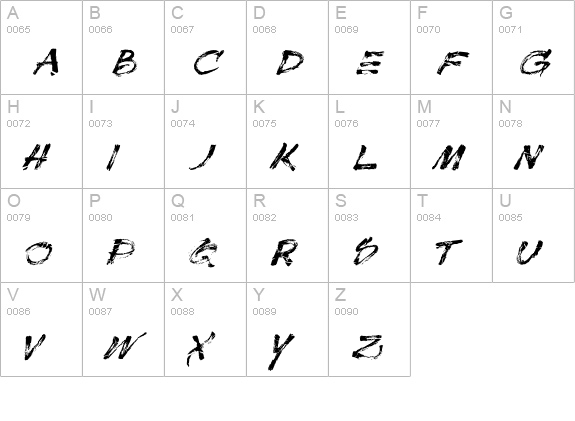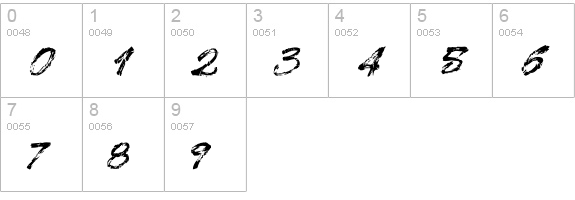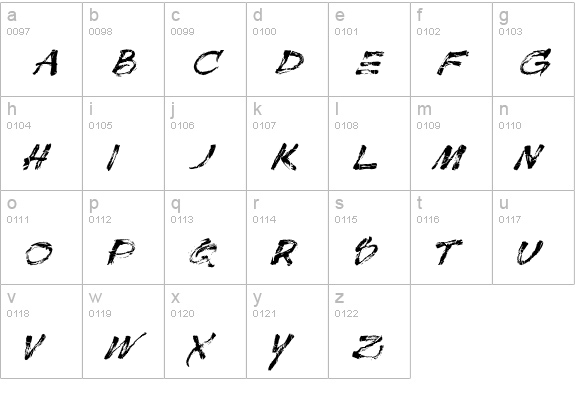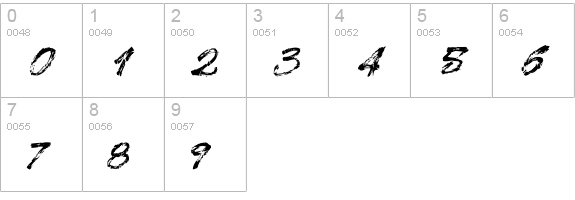
SonicaBrush Crashed Font Details
SonicaBrush Crashed font is a dynamic and edgy typeface that exudes energy and creativity. With its bold strokes and distressed appearance, this font is perfect for adding a rebellious and gritty touch to your designs. The jagged edges and uneven lines give SonicaBrush Crashed a sense of movement and urgency, making it ideal for projects that require a bold statement. Best of all, SonicaBrush Crashed font is available for free download at FontsMarket.com. This means you can easily add this unique and eye-catching font to your collection without any cost. Whether you're working on a poster, branding project, or any other design, SonicaBrush Crashed font will bring a raw and expressive element to your work. Don't miss out on this opportunity to elevate your designs with this striking and distinctive typeface.